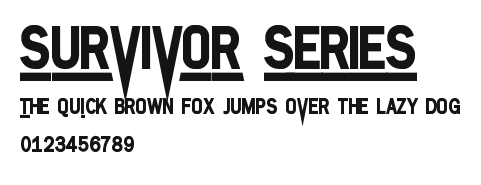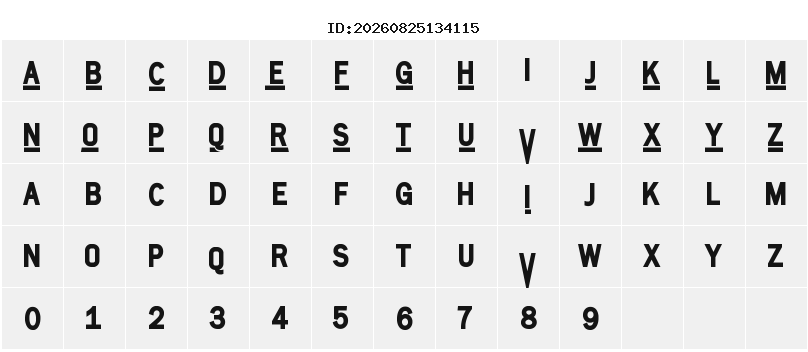
• Font Name: SURVIVOR SERIES
• Full Font Name: SURVIVOR SERIES
About SURVIVOR SERIES.ttf
SURVIVOR SERIES.ttf is a modern, elegant sans-serif font designed for ultimate readability and visual harmony. Perfect for branding, headlines, web design, and print materials.